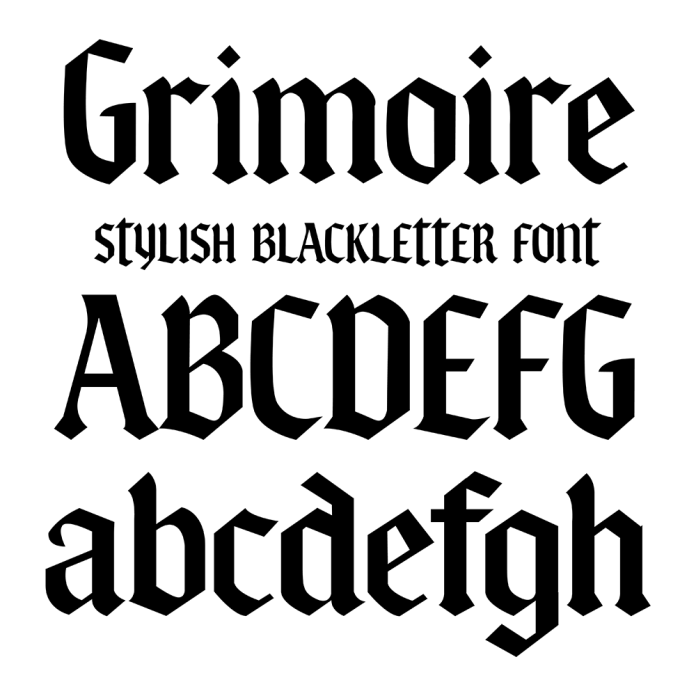
Grimoire Trendy Modern Blackletter Font is a unique blend of traditional blackletter style with modern trends. Its intricate, decorative details give it a spooky, Halloween vibe perfect for themed designs. This font is versatile and can be used for various creative projects that require a touch of elegance and edge.